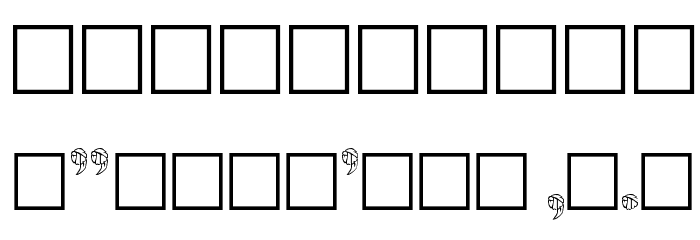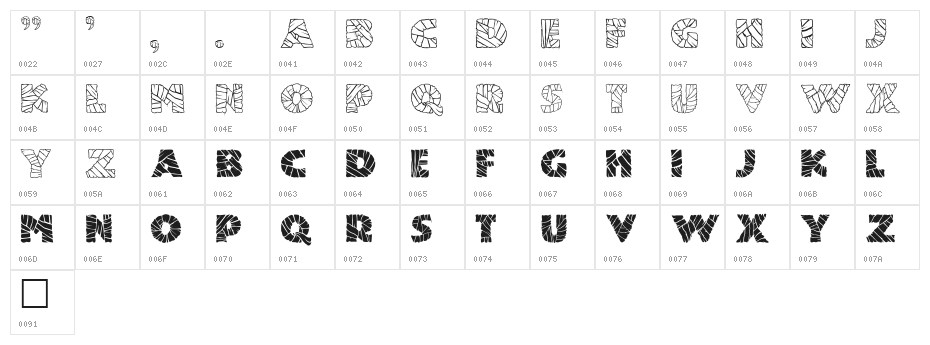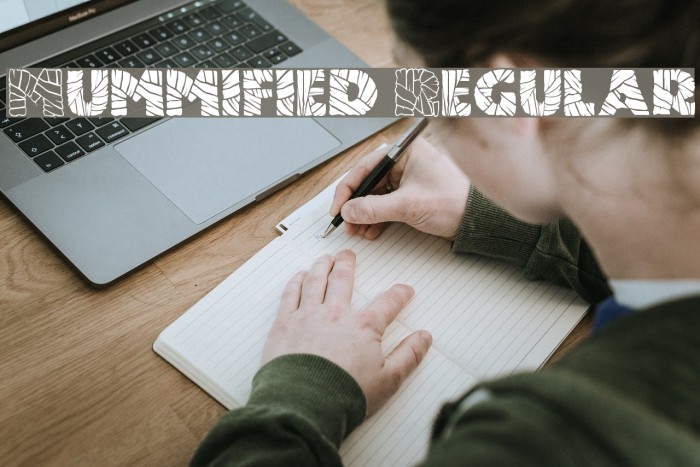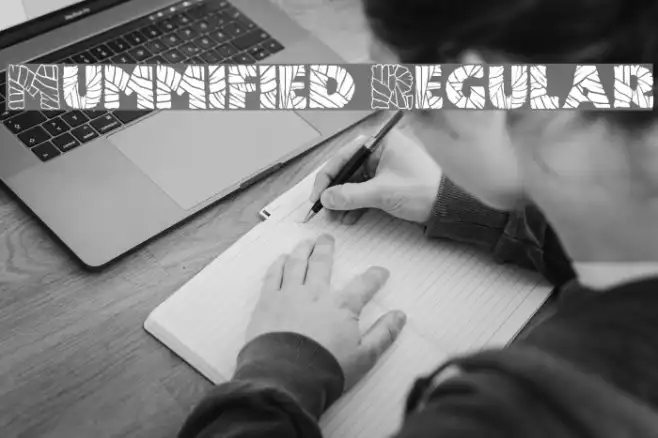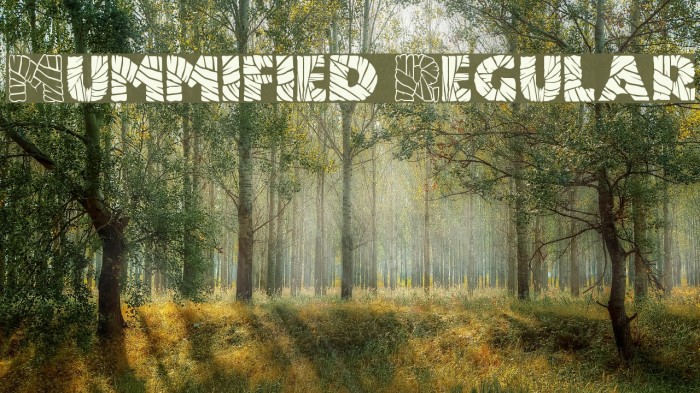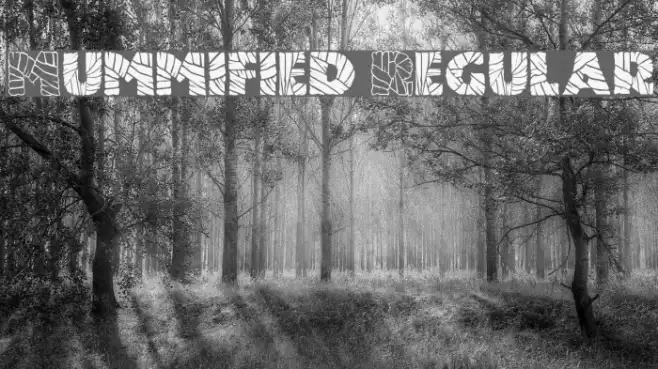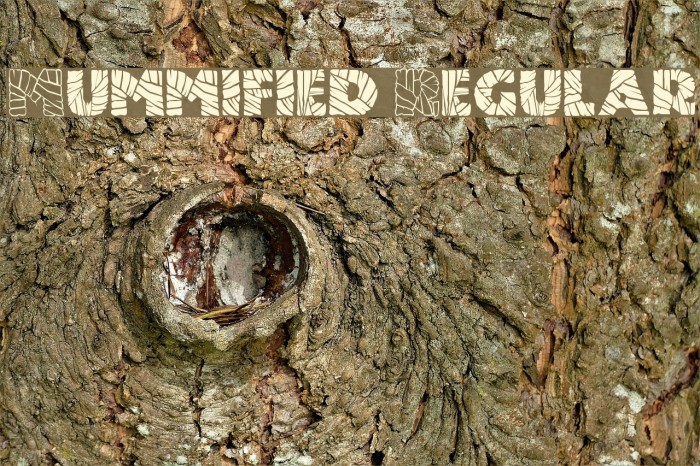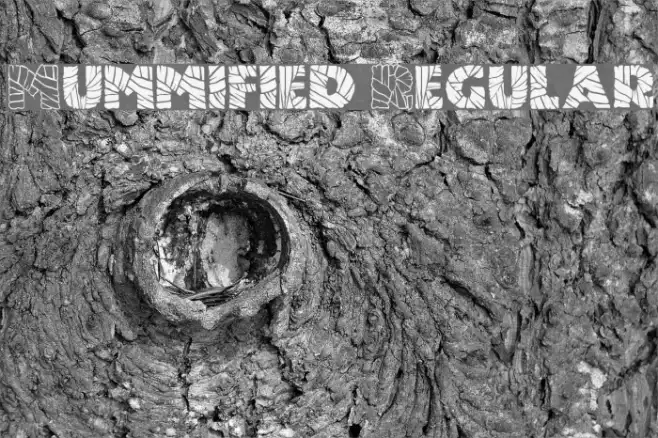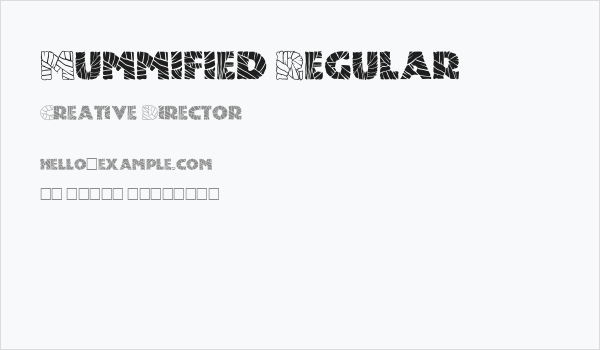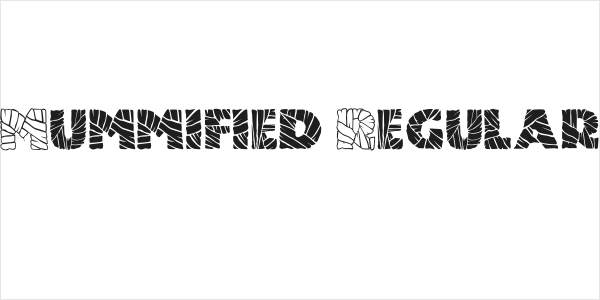
Mummified Regular Font
Mummified Regular Description
This font features a unique, decorative style that mimics the appearance of bandages or wrappings, reminiscent of a mummified texture. The letters are bold and display a high level of detail with intricate line work that creates a textured effect. Each character is distinct, with a playful yet slightly eerie aesthetic, making it ideal for themes related to Halloween or ancient Egyptian motifs. The uppercase letters are particularly striking, with a strong presence that commands attention. The font does not include lowercase letters or numbers, focusing instead on a robust set of uppercase characters.